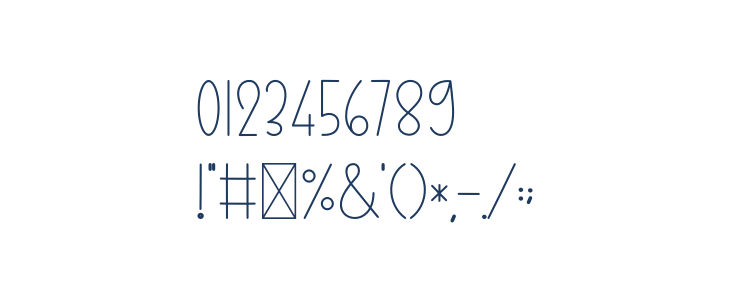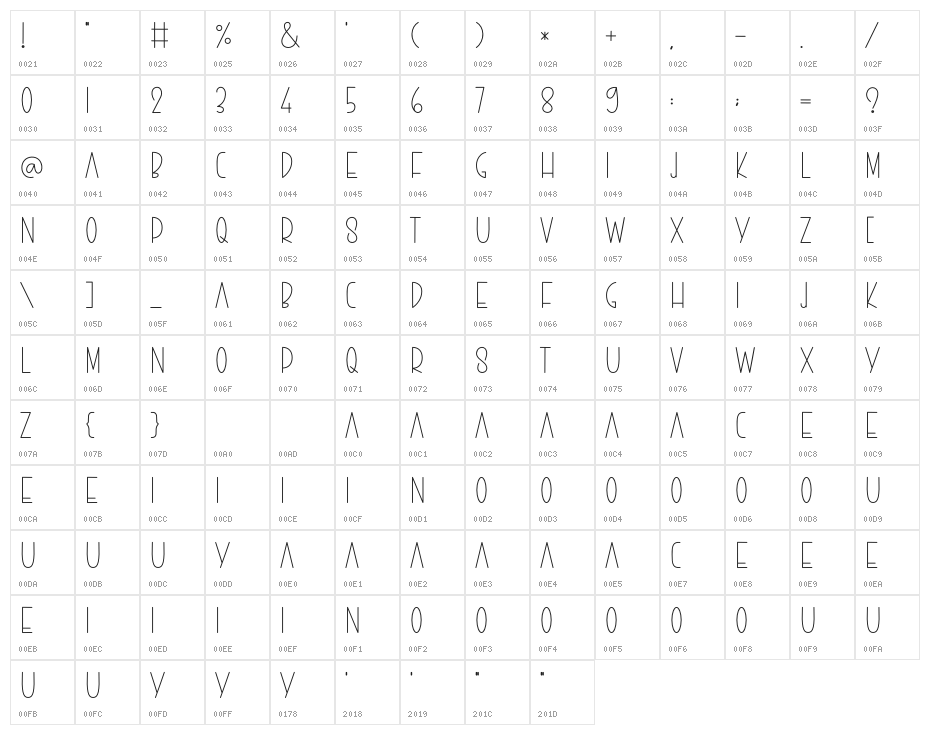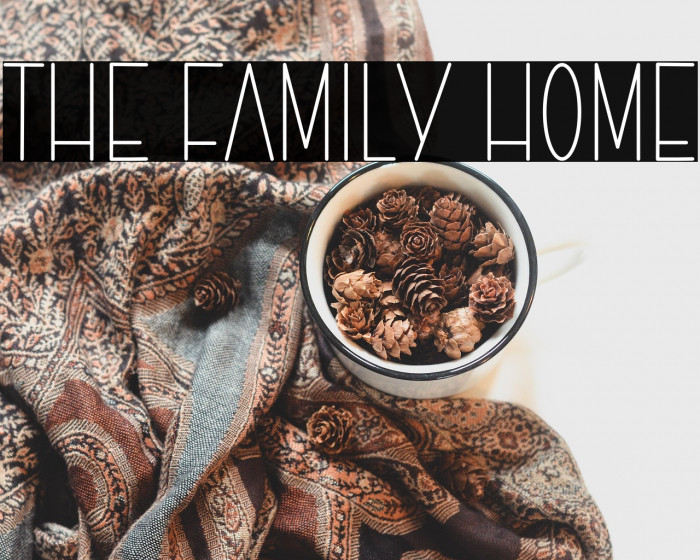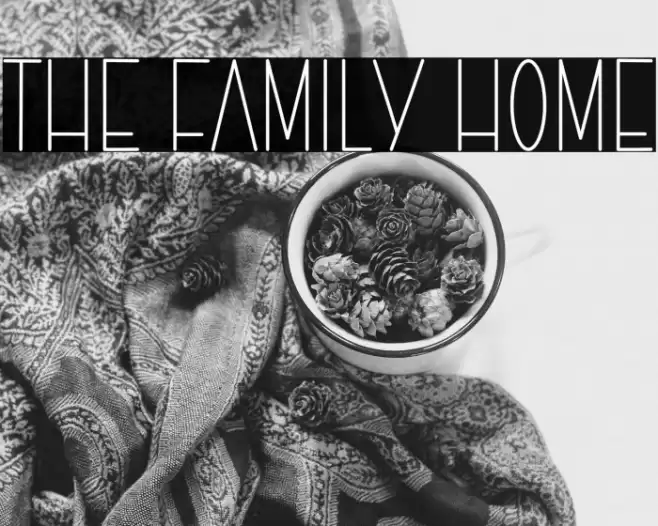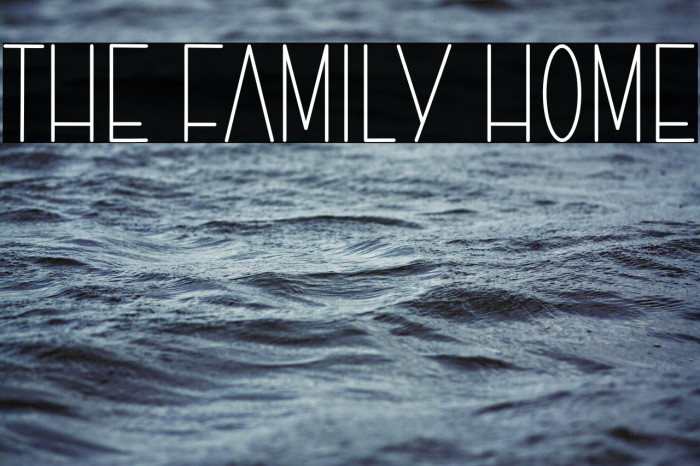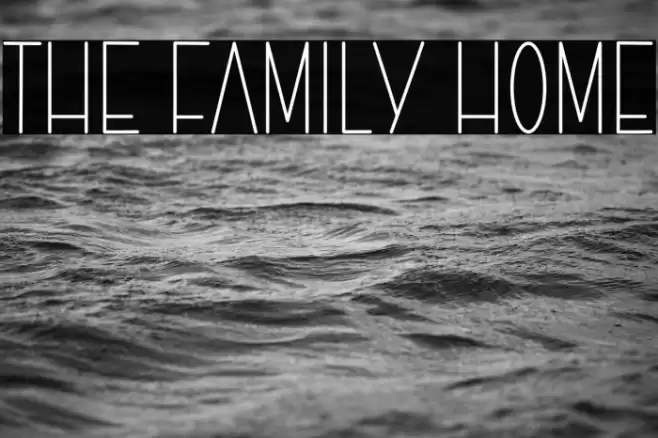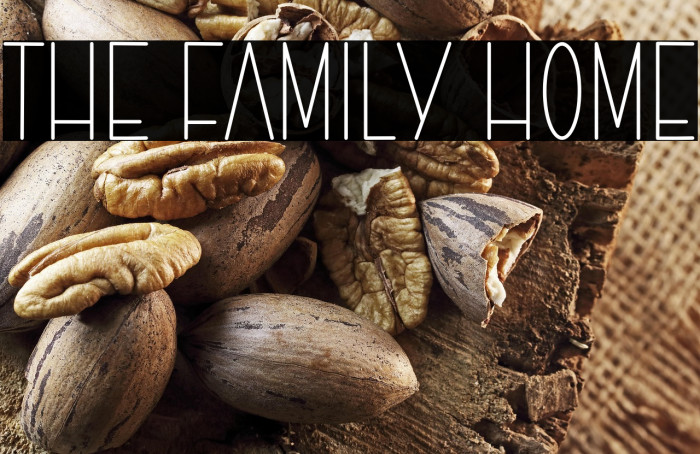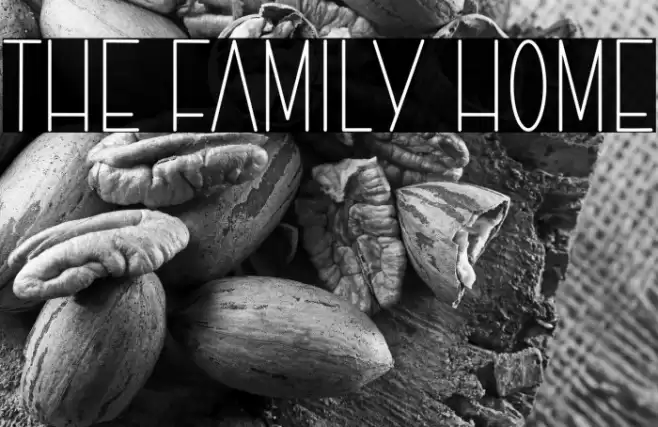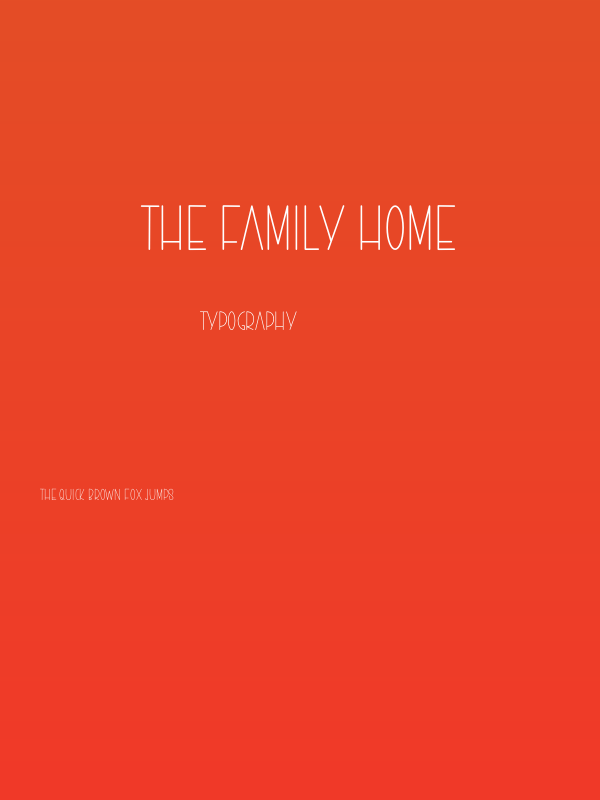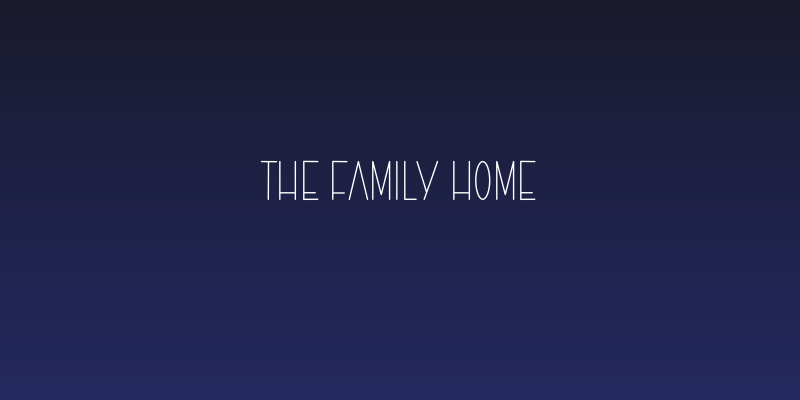
The Family Home Font
The Family Home Description
This font features a modern and minimalist design with tall, narrow letters that convey a sense of elegance and sophistication. The characters are constructed with clean, straight lines and subtle curves, giving them a sleek and contemporary appearance. The uppercase letters are particularly elongated, while the lowercase letters maintain a consistent height, creating a harmonious balance. The numerals are distinct and easy to read, and the special characters are designed with the same attention to detail, ensuring a cohesive look across all glyphs. This font's simplicity and clarity make it versatile for various design applications.
| Proposed Projects | Ideal for branding, editorial design, packaging, and digital media projects. |